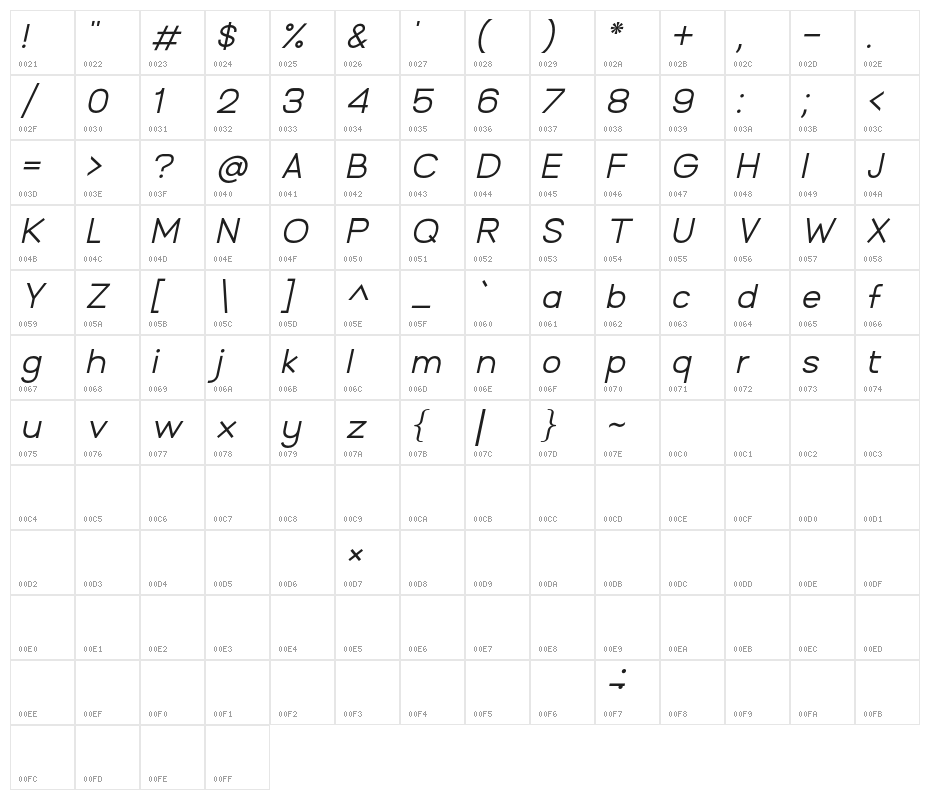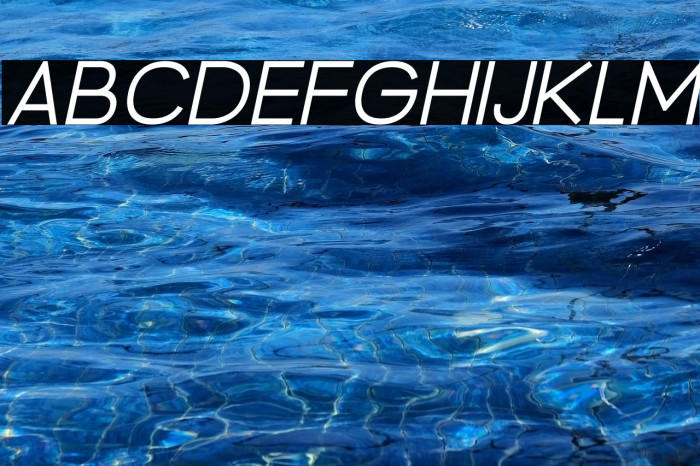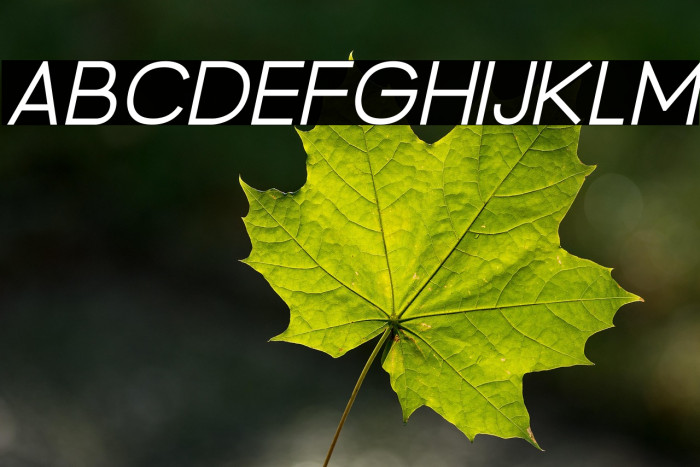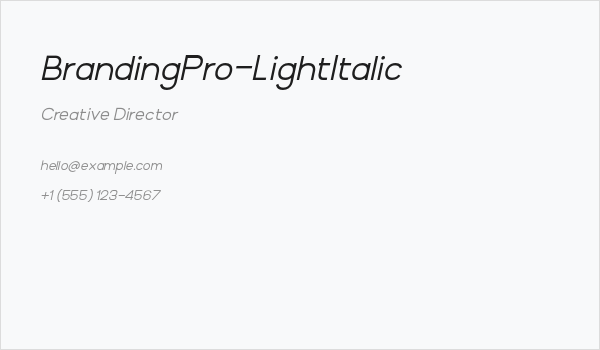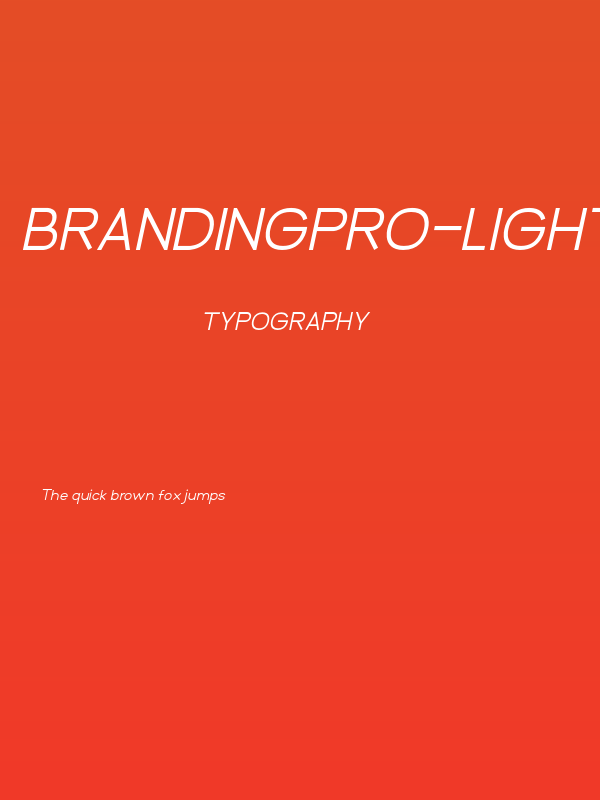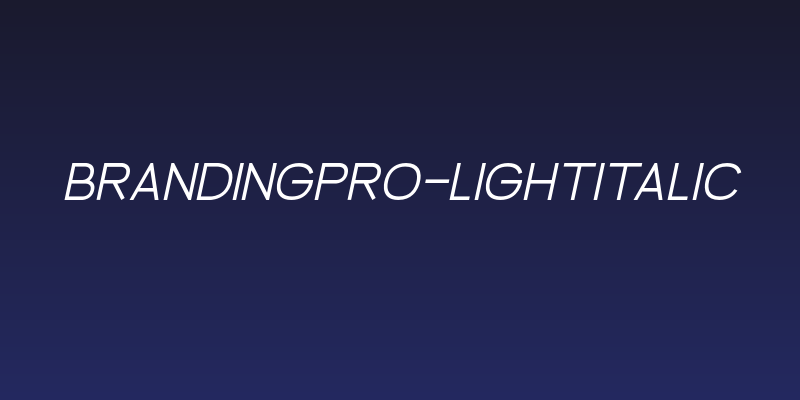
BrandingPro-LightItalic Font
BrandingPro-LightItalic Description
This font features a sleek and modern design with a light weight and italic style. The characters are elegantly elongated, providing a sense of movement and fluidity. The sans-serif nature of the font ensures a clean and uncluttered appearance, making it versatile for various design applications. The spacing between characters is normal, allowing for readability while maintaining a sophisticated look. The font's low contrast in stroke thickness contributes to its contemporary and minimalist aesthetic, making it suitable for modern branding and design projects.
| Use Case | Logos, Headlines, Digital Media |
| Proposed Projects | Ideal for modern branding, advertising, digital media, and minimalist design projects. |